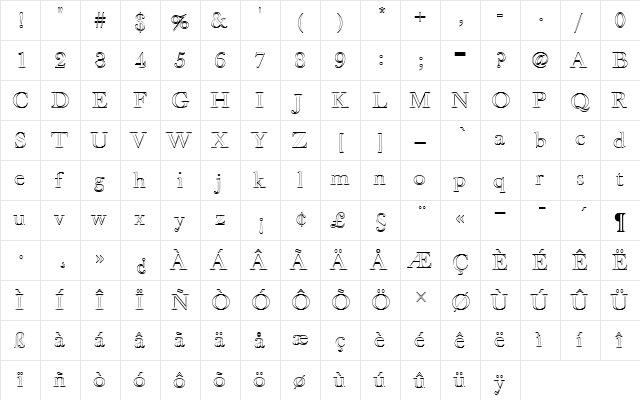
Baskerville Old Face D Ou1 Regular
| Foundry | by URW |
Baskerville Old Face D Ou1 takes a measured approach to typography — its balanced proportions and neutral character make it a reliable workhorse for both digital and print work.